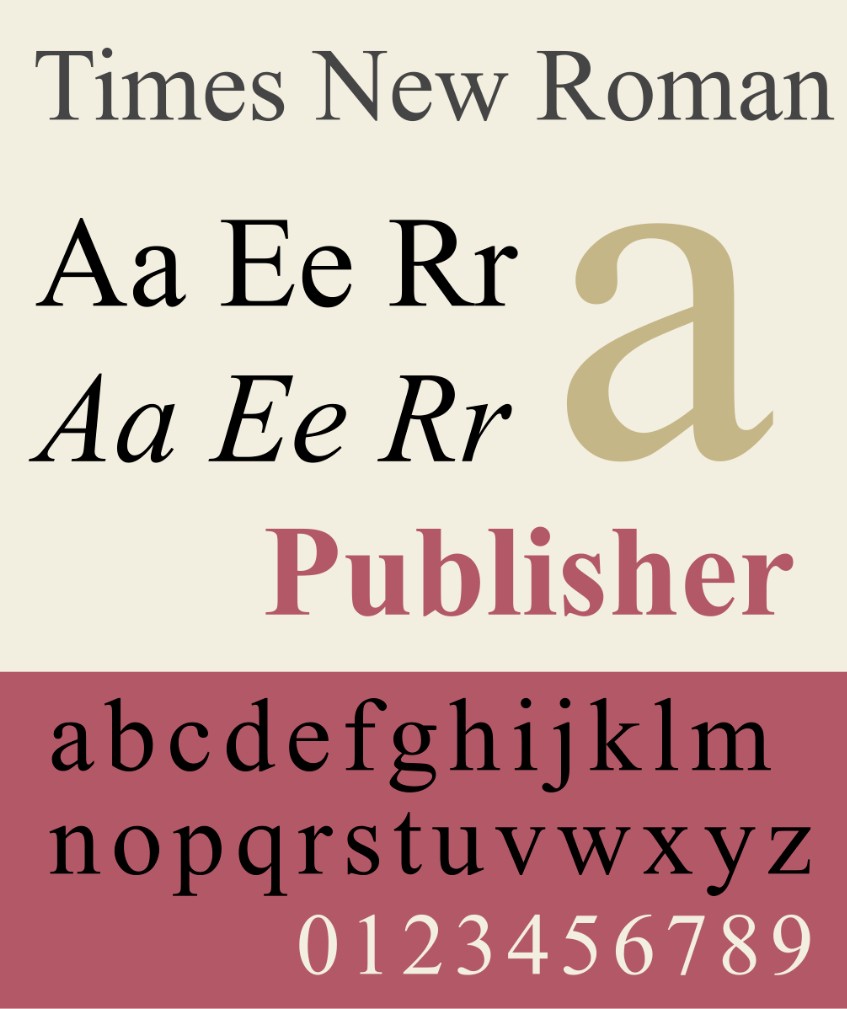
Beautiful Vietnamese fonts: Design trends for 2025 you can't miss.
Discover beautiful and optimized fonts for Vietnamese, helping to elevate the aesthetics of your project. The 2025 trend focuses on minimalism, modernity, and readability.
Entering 2025, with minimalism, aesthetics, and user experience becoming paramount, the demand for beautiful Vietnamese fonts is rapidly increasing. A key feature in font design for the Vietnamese market is the full support for Vietnamese diacritics. Many popular international fonts lack complete Vietnamese localization, leading to limitations in usage. Therefore, in 2025, the trend for fonts is not only for beautiful fonts but also for fonts that are Vietnamese-friendly, fully support the character set, offer a wide range of bold and light shades, and are highly applicable in branding, print products, web interfaces, and social media content. This article will help you better understand the benefits of using beautiful fonts , update you on the top most popular Vietnamese fonts in 2025 , and suggest important tips for combining fonts harmoniously and professionally.
1. What are the benefits of using beautiful fonts?
Fonts directly impact how viewers perceive content, yet many often underestimate their importance. In reality, fonts can shape the visual experience, influencing readability, emotions, and even the level of trust viewers place in a product.
The first benefit of a beautiful font lies in its ability to convey a message clearly and effectively. An easy-to-read font helps viewers absorb information more quickly, without being distracted by overly complex or unbalanced lines. This is especially important in print design such as brochures, catalogs, posters, or in digital environments such as websites and applications. Traditional serif fonts convey a sense of formality and trustworthiness, while modern sans-serif fonts offer minimalism, friendliness, and accessibility.
The second benefit is aesthetics. The font is the "interface" of the content, and a beautiful design always starts with harmony in typography. When you choose the right font, all other elements such as color, layout, and images become more balanced and professional. Conversely, if the font is chosen incorrectly, even a product with carefully crafted images will lose the necessary sophistication.
Another important benefit of attractive fonts is their ability to build brand recognition. Viewers may forget the image or slogan, but they will remember the feeling that the font evokes. Large brands like Google, Spotify, and Airbnb all have distinctive font sets to enhance brand recognition. For Vietnamese businesses, choosing an attractive and consistent font that supports the Vietnamese language will help the brand showcase its unique identity across all media platforms.
2. The most popular and beautiful fonts of 2025
The 2025 font trends in Vietnam combine tradition and modernity. Classic serif fonts are making a strong comeback, while modern sans-serif fonts remain popular due to their versatility. Below are some of the most beautiful, widely used Vietnamese fonts in design in 2025.
2.1. Times New Roman
Times New Roman is a classic serif font, consistently ranking among the most widely used fonts worldwide. Despite its long history, it remains popular in 2025 due to its formality, readability, and balanced strokes. It's commonly found in academic documents, newspapers, reports, administrative texts, and printed books. Vietnamese users are familiar with Times New Roman not only for its traditional nature but also because it fully supports Vietnamese diacritical marks.
In design, Times New Roman is suitable for projects requiring reliability, such as educational publications, office documents, research papers, or classic-style branding. When used in large sizes, this font conveys a sense of sophistication and refinement, making it ideal for serious headlines.
2.2. Arial
Arial is a popular sans serif font and considered a "safe" choice in all situations. With its clean, simple lines, Arial is suitable for a variety of designs, from posters and infographics to website interfaces. In 2025, Arial continues to be popular due to its ability to display well on all screen sizes, ensuring readability even when scaled down.
One reason why Arial is favored by many designers in Vietnam is that it has a complete Vietnamese character set and is well-optimized for popular operating systems. Arial offers a modern, minimalist style, perfectly suited to the clean design trends of the digital age.
2.3. Robot
Roboto is a font developed by Google specifically for Android interfaces and web products. By 2025, Roboto will still be among the most popular fonts in Vietnam due to its versatility, high readability, and various weights that allow designers to freely combine them.
Roboto strikes a balance between the mechanical look of traditional sans serif fonts and the natural softness of modern fonts. This makes Roboto suitable for almost any design product, from apps and websites to marketing materials. Excellent Vietnamese language support is also a major plus, helping Roboto maintain its top position.
2.4. Font Helvetica
It's impossible to discuss sans serif fonts without mentioning Helvetica, one of the most influential fonts of the century. Helvetica is renowned for its neutrality, simplicity, and impeccable detail. From major brands to global advertising campaigns, Helvetica has consistently been a top choice.